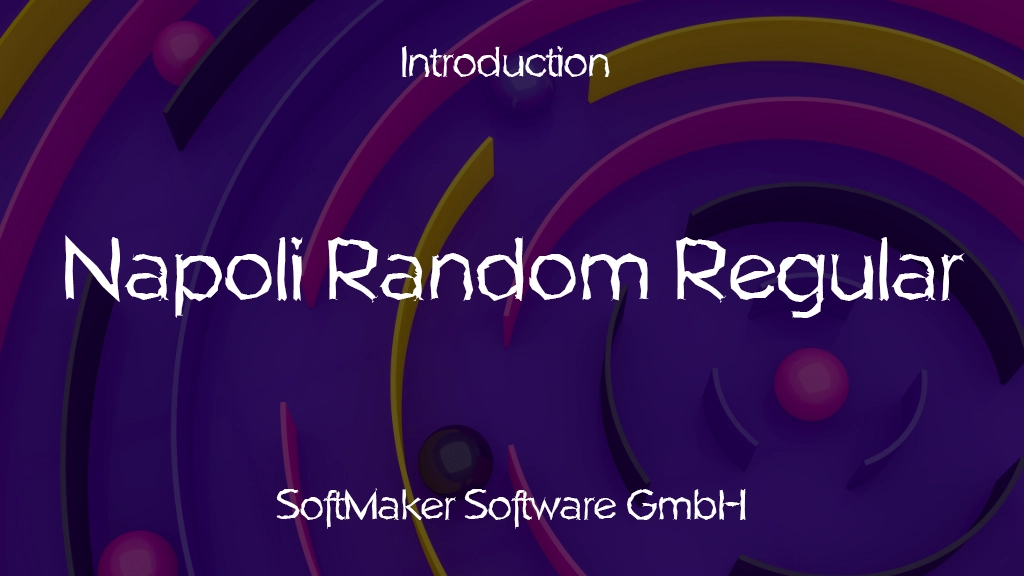
Napoli Random Regular is an excellent font choice for adding a touch of playfulness to your design projects. This font falls under the Regular subfamily and was created by SoftMaker Software GmbH. It is available for personal use without any charge.